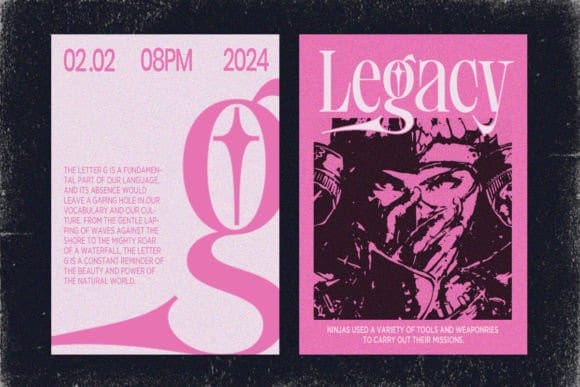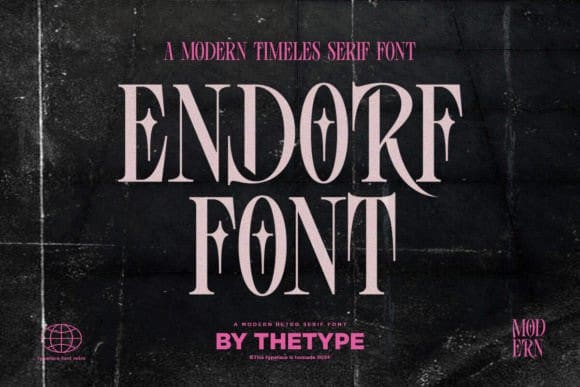
Endorf Font
Endorf Font is a lovely and timeless serif font. It is the best choice for creating eye catching logos, branding and quotes. Every letter has a unique and beautiful touch, which will make your design come alive!